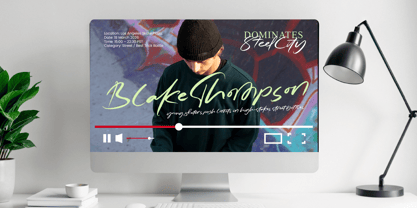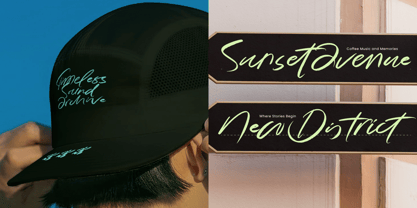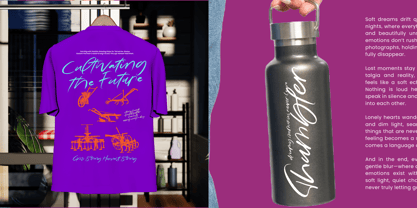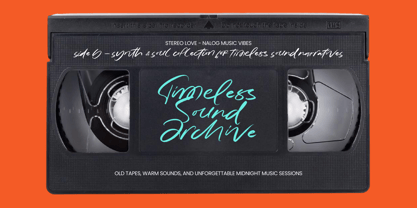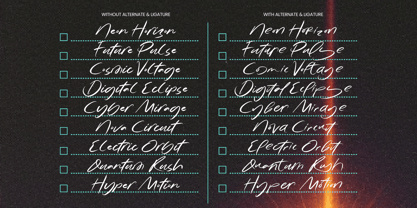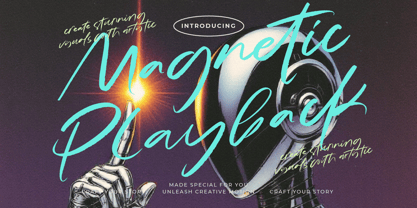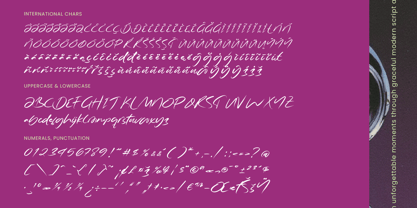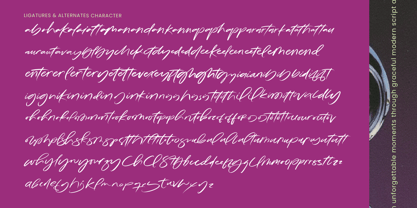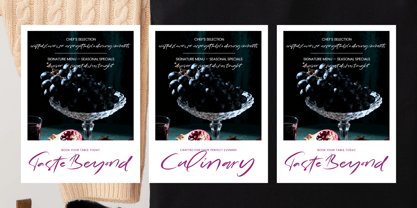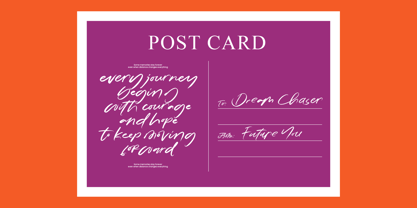
Playback
by Stylishtype Studio
The Playback Font Family was designed by Heru Utama Putra and published by Stylishtype Studio. Playback contains 2 styles and family package options. More about this family
Unleash raw creative energy with a typeface that defines modern expression and artistic flair. Magnetic Playback - Handbrush Script Font captures the essence of authentic brushwork, offering organic textures and high-velocity strokes that demand immediate attention. This typeface is engineered for designers who require a hand-painted aesthetic without compromising on professional precision or digital clarity.